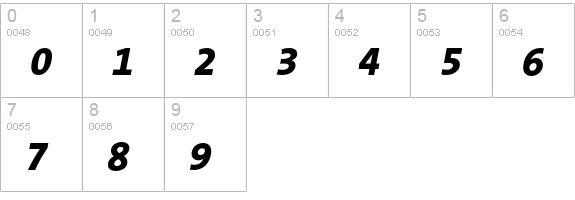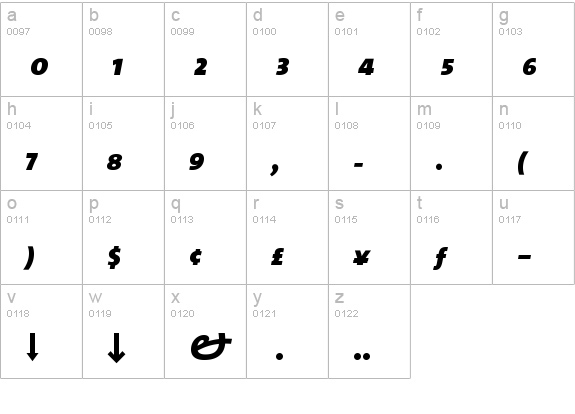
TheSans ExtraBold Expert Italic Font Details
TheSans ExtraBold Expert Italic is an extra-heavy, attention-grabbing, italic variant in the TheSans typeface family \xE2\x80\x94 well suited to high-impact headlines, posters, and bold branding.
TheSans ExtraBold Expert Italic font is a captivating and assertive typeface that exudes confidence and sophistication. With its strong and bold strokes, this font demands attention and makes a powerful statement. Designed with expert precision, TheSans ExtraBold Expert Italic strikes the perfect balance between elegance and strength. Its slanted and italicized posture adds a touch of dynamism and flair to any design, making it ideal for headlines, logos, and other eye-catching elements. This font is versatile and adaptable, effortlessly adapting to various design projects. Whether used in print or digital media, TheSans ExtraBold Expert Italic elevates the aesthetic appeal and professionalism of any composition. One of the most remarkable aspects of TheSans ExtraBold Expert Italic is that it is available for free download at FontsMarket.com. This means that designers, graphic artists, and typography enthusiasts can easily access and utilize this stunning font without any cost or restrictions. With its freely accessible availability, TheSans ExtraBold Expert Italic font opens up a world of creative possibilities and empowers designers to bring their visions to life. Its sleek and commanding appearance, combined with the convenience of being freely available, makes it an invaluable asset for any design project. Download TheSans ExtraBold Expert Italic font today from FontsMarket.com and embark on a journey of design excellence. Explore the limitless potential of this font and create visually stunning and impactful designs that leave a lasting impression. Let TheSans ExtraBold Expert Italic be your creative partner in achieving design greatness.